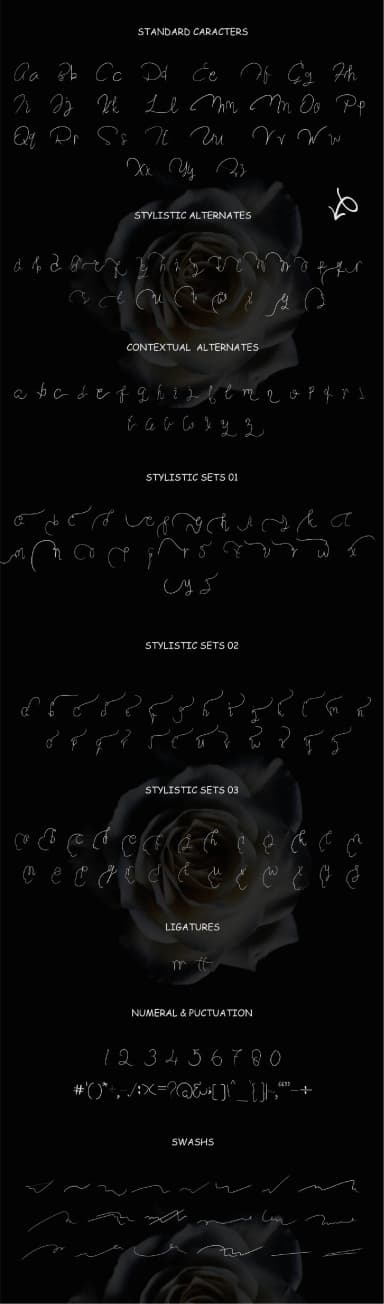
Chalky Voyage by Ajir is a handwritten script font that brings authentic calligraphic warmth to design projects. The organic letterforms capture the fluid, natural quality of traditional hand-drawn calligraphy while maintaining strong legibility across various applications and sizes.
This versatile script excels for wedding invitation suites, where elegant strokes convey both sophistication and personal touch. It works beautifully for personalized greeting cards, allowing designers to infuse messages with genuine character and warmth. The font shines in boutique packaging design, adding artisanal appeal to product labels, cosmetic containers, and specialty product branding. Event signage and programs benefit from its expressive quality, creating distinctive impressions for celebrations and special occasions.
Chalky Voyage includes swash alternates that expand creative possibilities, giving designers multiple ways to render individual characters for enhanced visual interest and customization. Whether crafting hand-lettered product labels for online shops or designing decorative headers for invitation sets, the font delivers that coveted handmade aesthetic without sacrificing professional polish or readability. Its balanced approach to letterform spacing and proportions works effectively across both display and body text applications. Discover Chalky Voyage on Creative Fabrica and bring expressive character to your next creative project.
- Elegant, Flowing, Chalky Voyage
Chalky Voyage Font is a script font that shines as a display or heading face. Pair it with a clean sans-serif or serif font for body text — the contrast creates a clear hierarchy while the two styles stay balanced and easy to read.